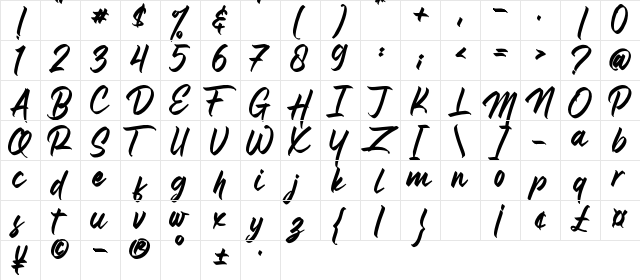
Gondess_DEMO Regular
Design Context for Gondess_DEMO Typeface
Gondess_DEMO is a composed and adaptable typeface that performs quietly and consistently across a wide range of design contexts.